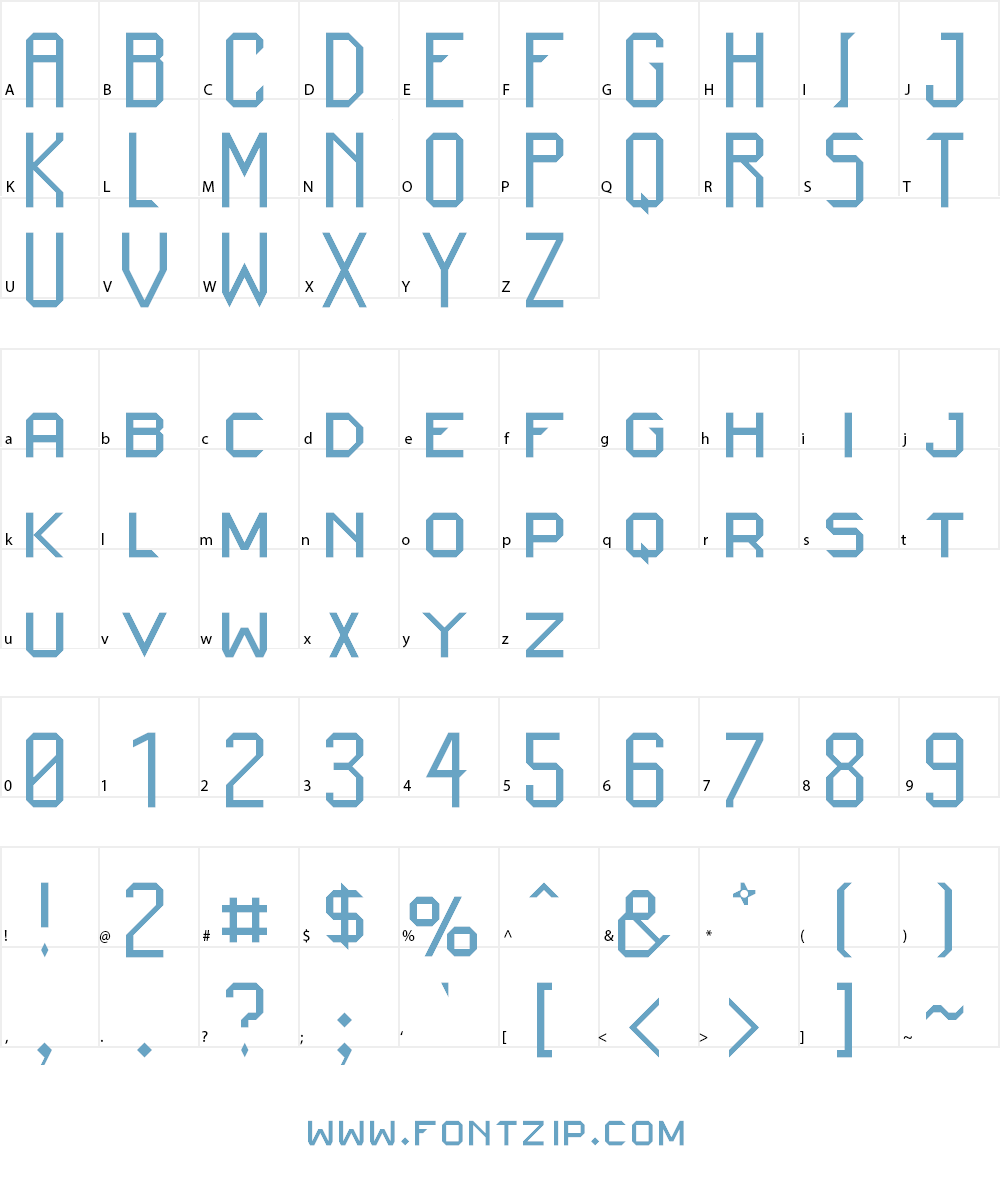
A small-caps typeface specifically designed for CG art. Sharp strokes inspired by Japanese katana (samurai swords)
Changed in V.1.1:
-Added katakana (finally!)